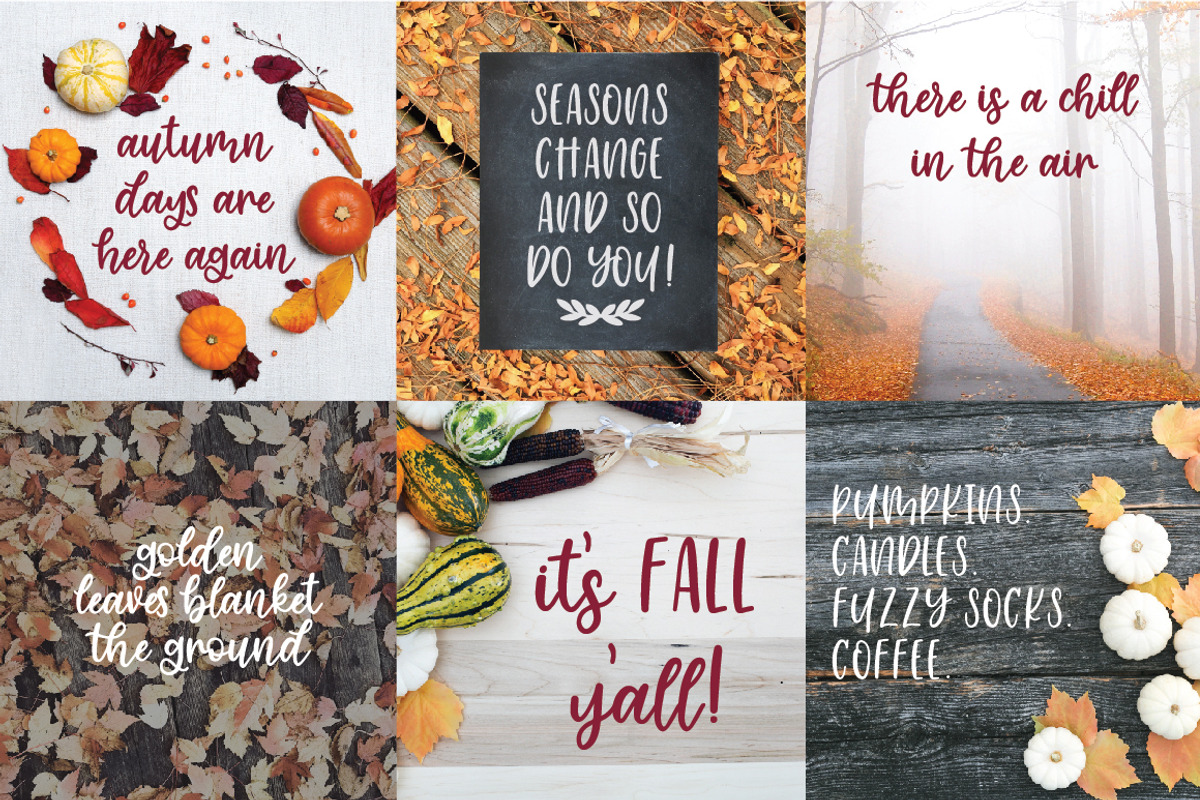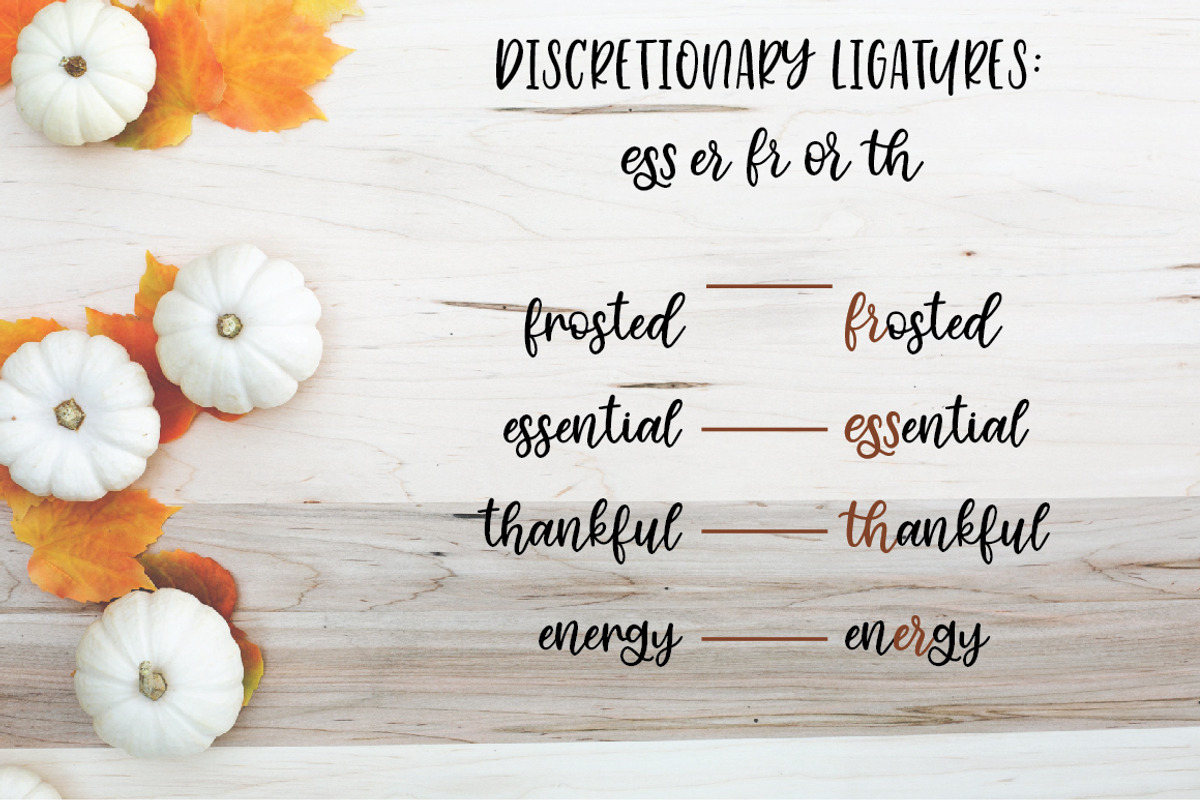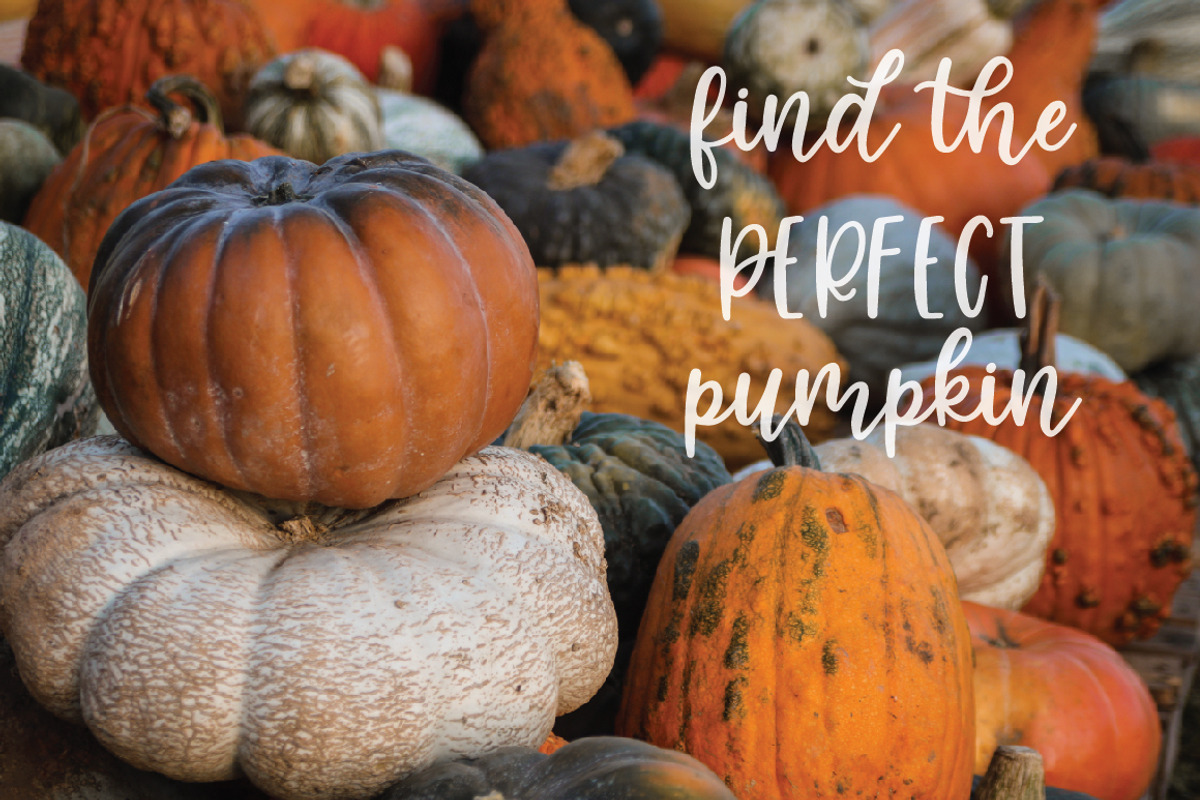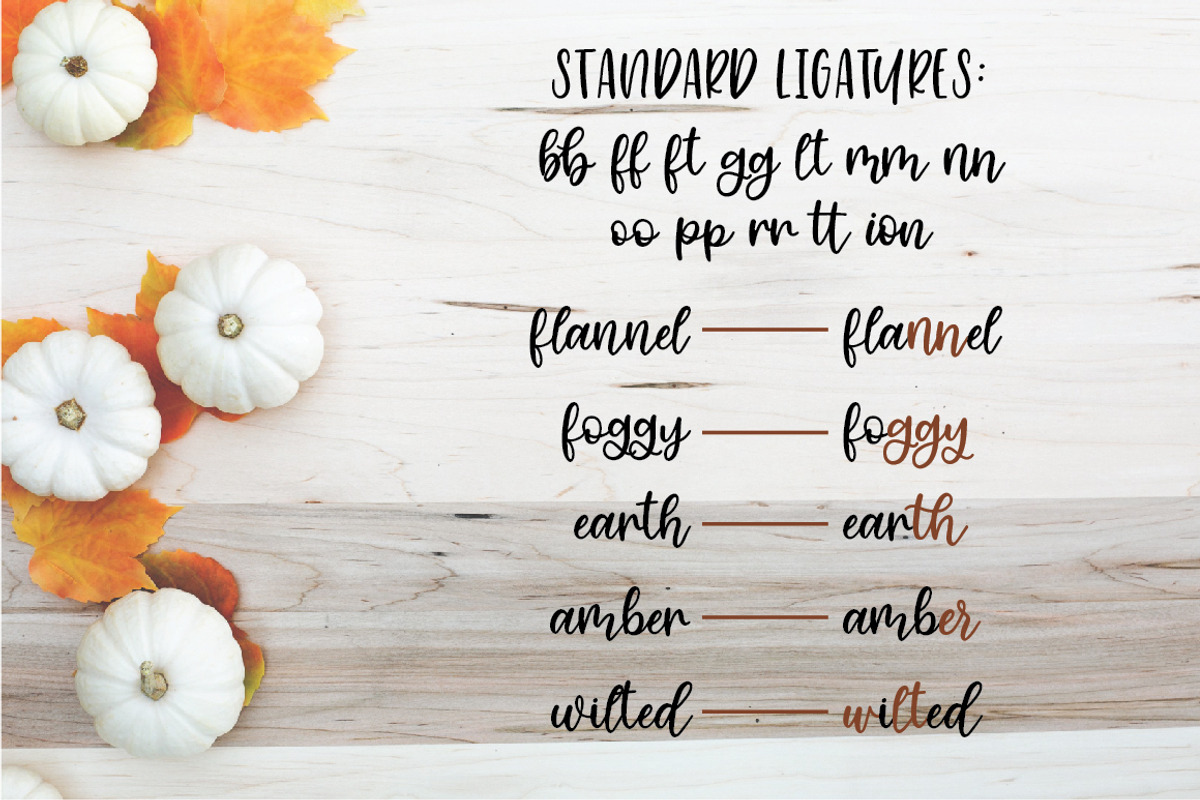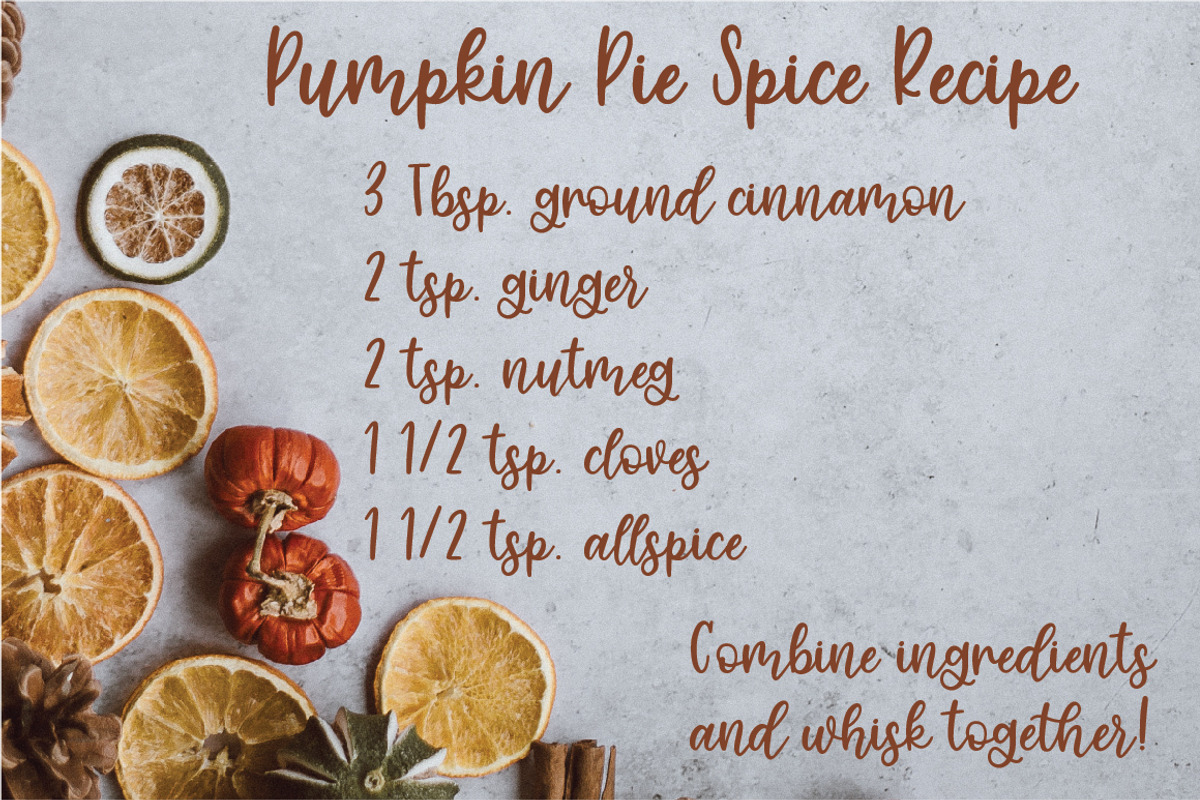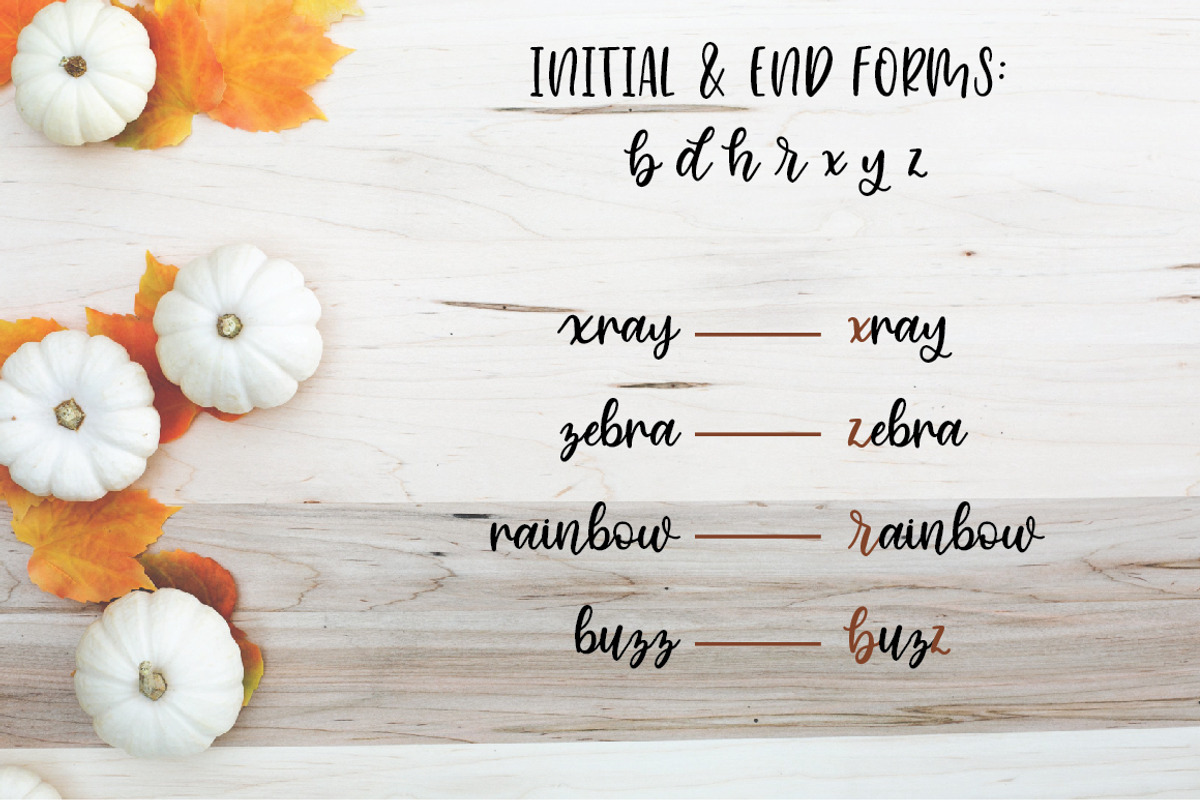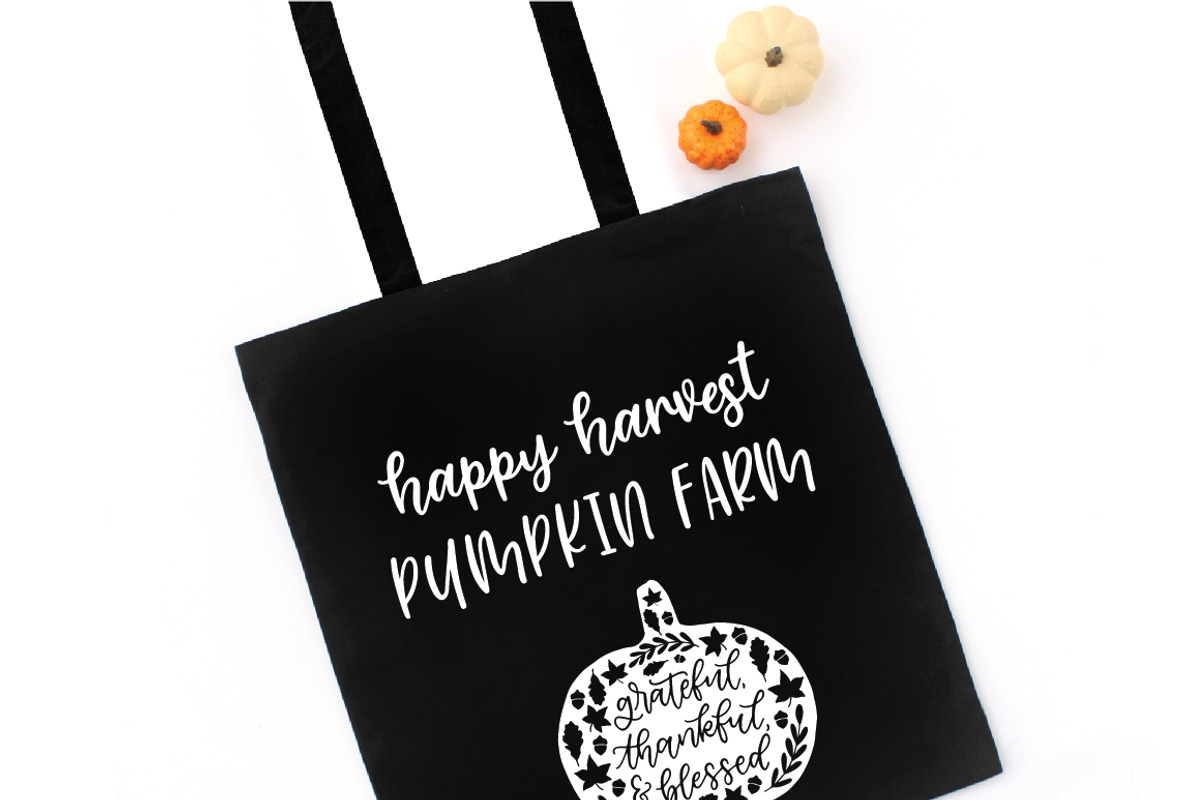
Cinnamon Sugar Script Font
Introducing Cinnamon Sugar a brand new hand lettered script font. Cinnamon Sugar comes packed with ligatures, alternates, and more. It features a fun all caps that pairs wonderfully with the lowercase script font.
Cinnamon Sugar Font Features:
Full set of lowercase script letters
Full set of uppercase sans serif letters
12 Standard Ligatures
5 Discretionary Ligatures
8 Initial and End Forms
14 Stylistic Alternates